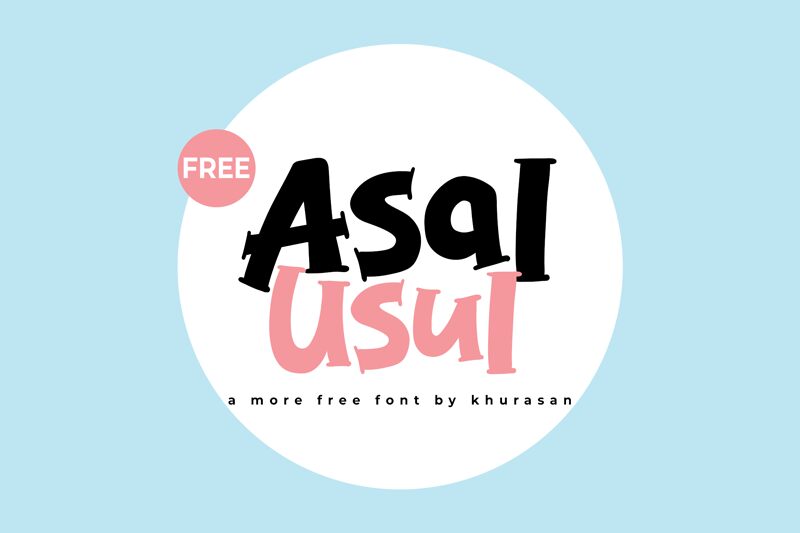
Asal Usul font family by Khurasan is a lively and informal cartoon-style typeface that stands out for its distinct characteristics. This free font family comes with two font styles that offer a modern and friendly touch to any design. Emphasizing a casual vibe, it’s perfect for adding an artistic and dynamic flair to your projects.
Present your audience with expressive and engaging texts on posters, book covers, social media posts, invitations, ads, and product packaging. It furthermore works quite well on websites, mobile apps, t-shirts, and other fashion items.